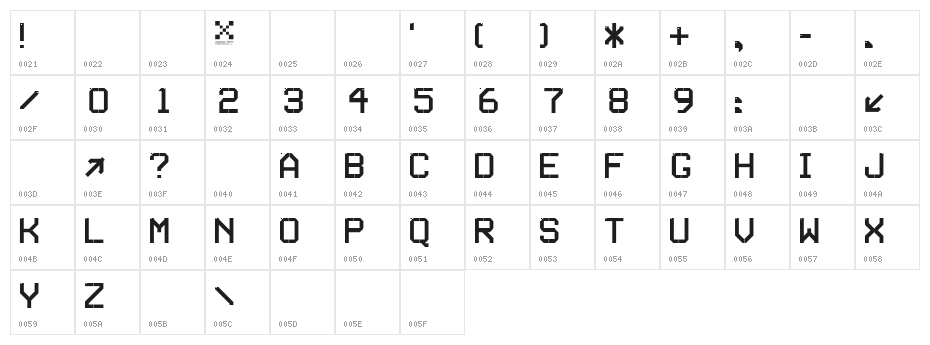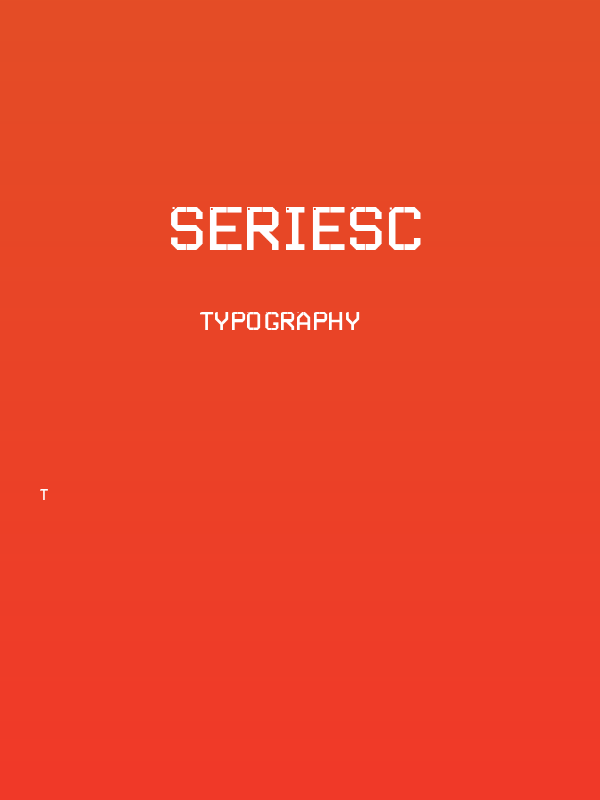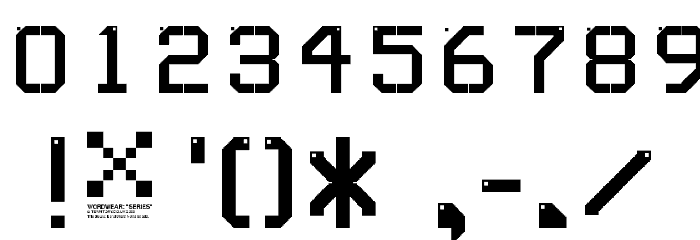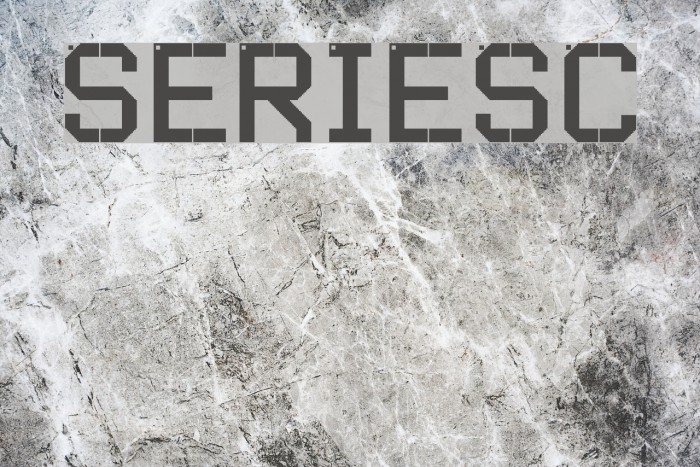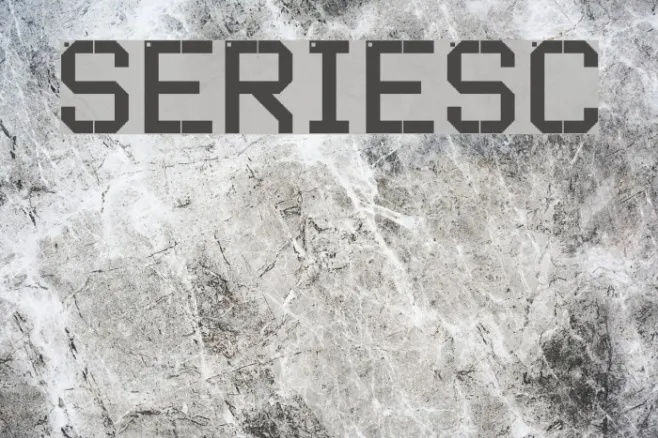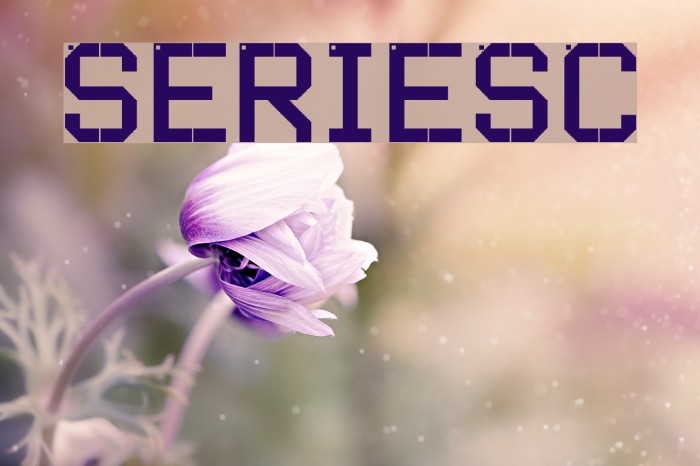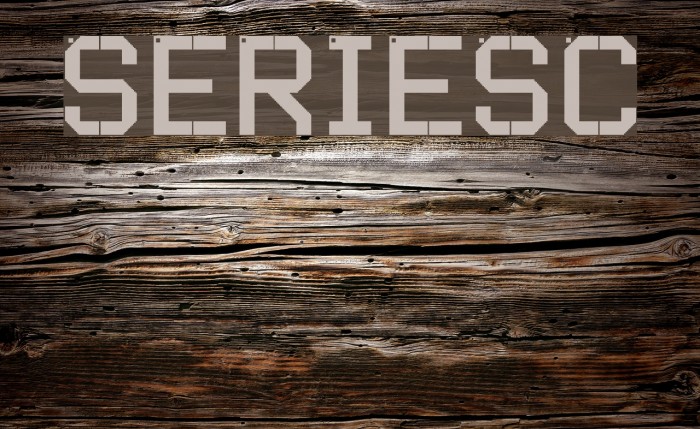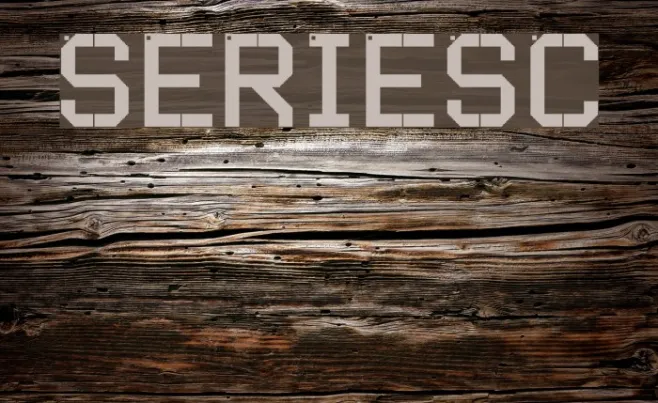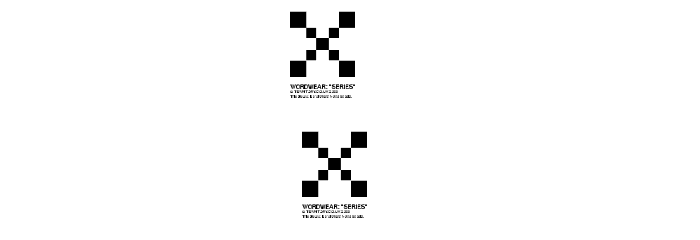
SERIESC Font
SERIESC Description
This font features a bold, geometric design with a distinctly modern and digital aesthetic. Each character is constructed with sharp, angular lines and a blocky structure, reminiscent of pixel art or early digital displays. The uniformity in stroke width across all characters gives it a cohesive and structured appearance. The uppercase and lowercase letters maintain a consistent height, while the numerals and special characters integrate seamlessly with the overall style. This font's design is both futuristic and retro, making it suitable for projects that require a tech-savvy or digital theme.